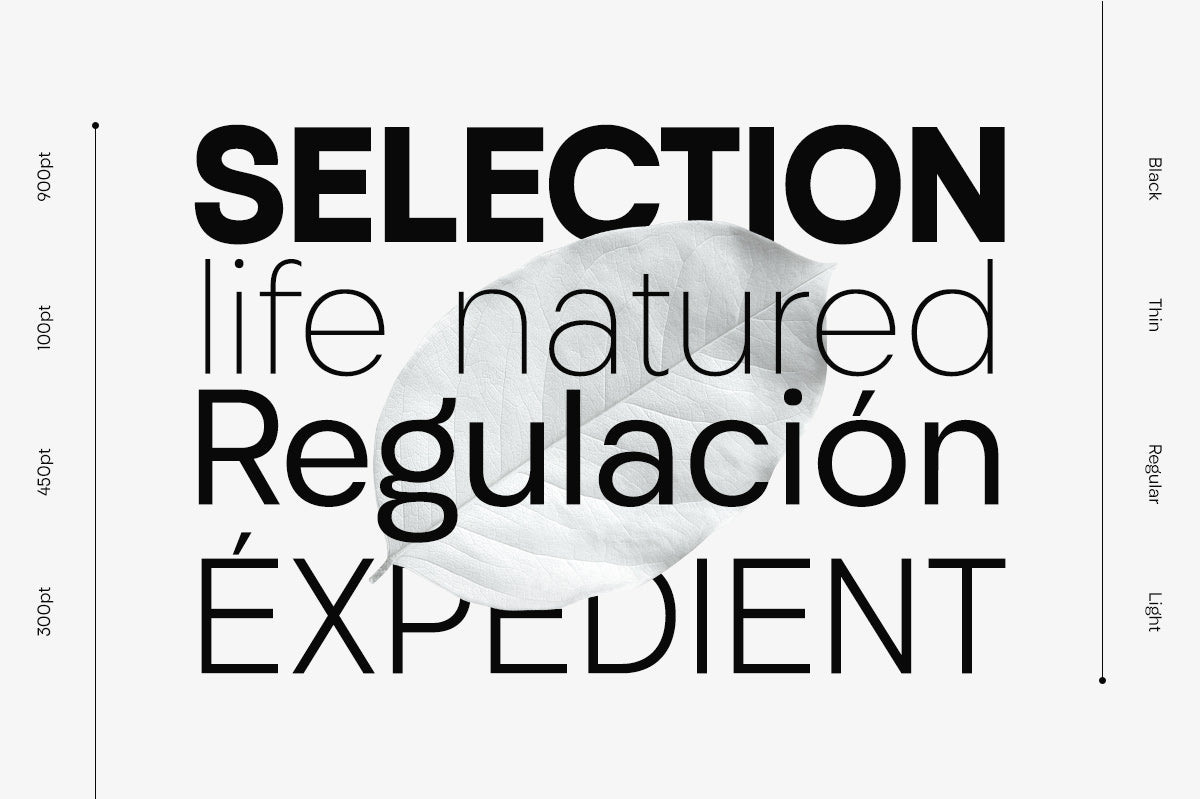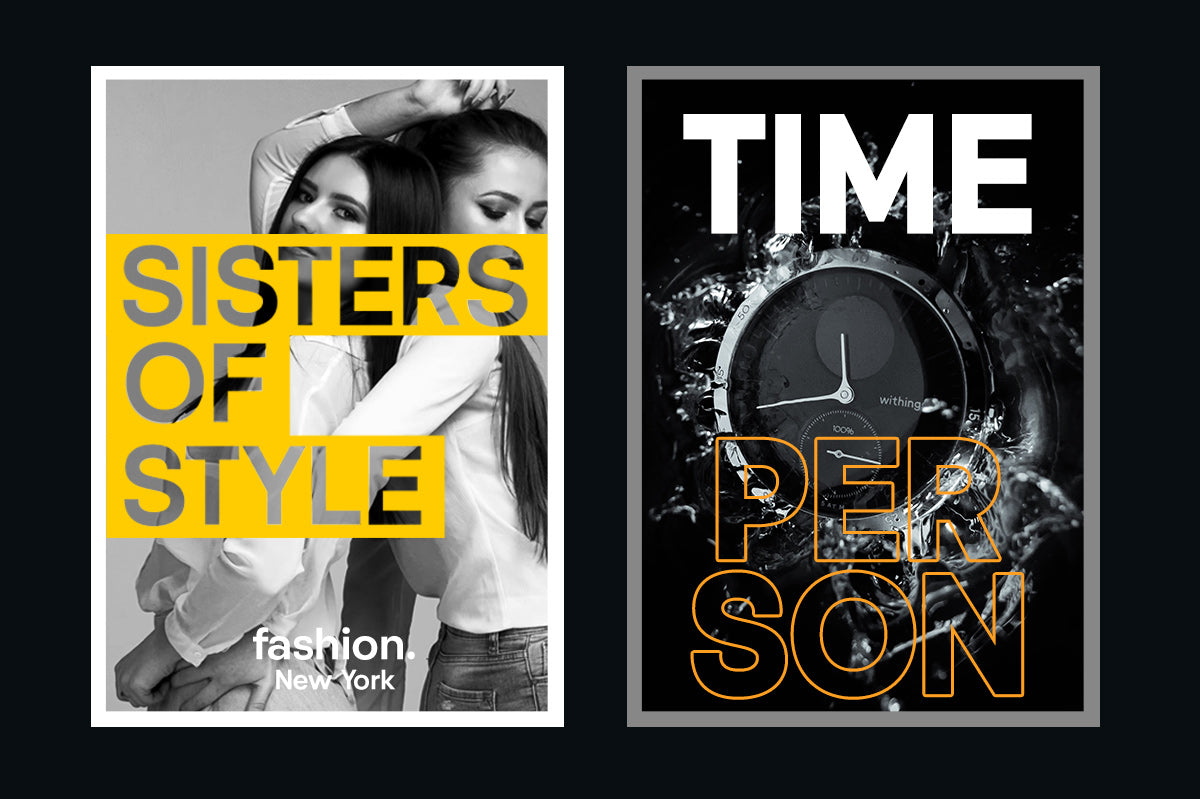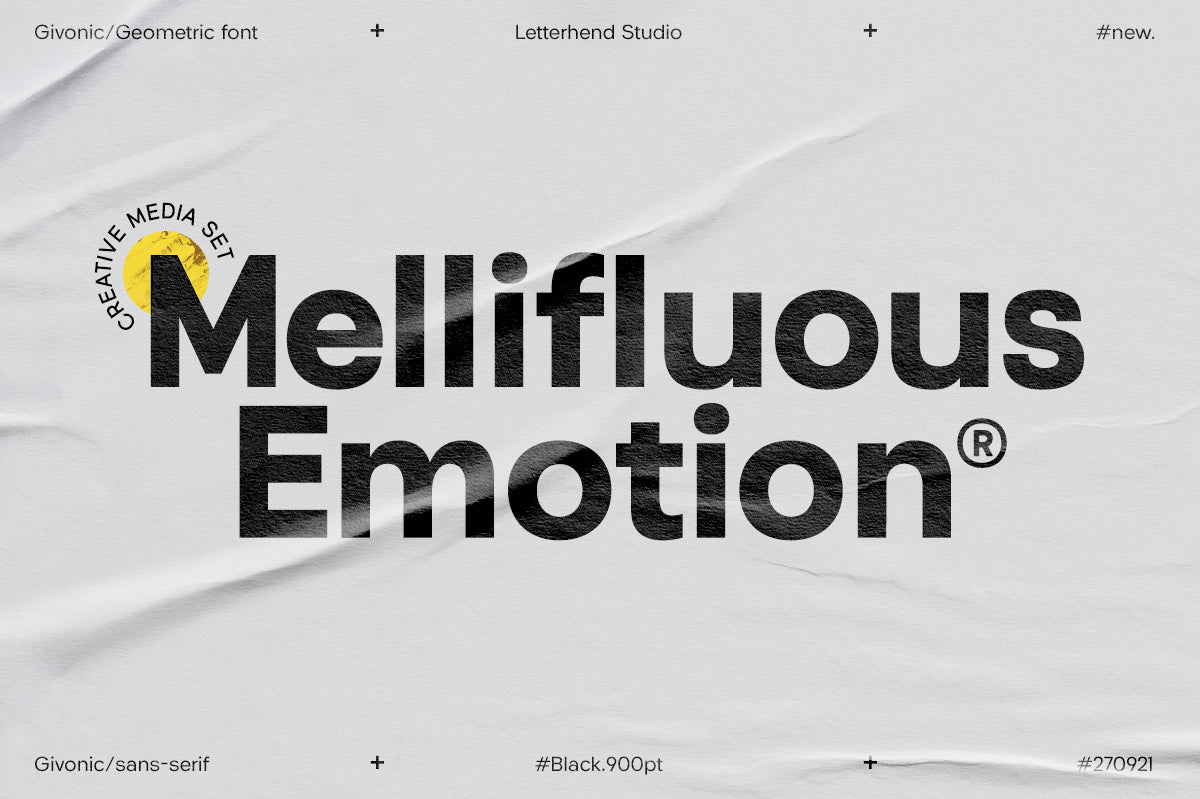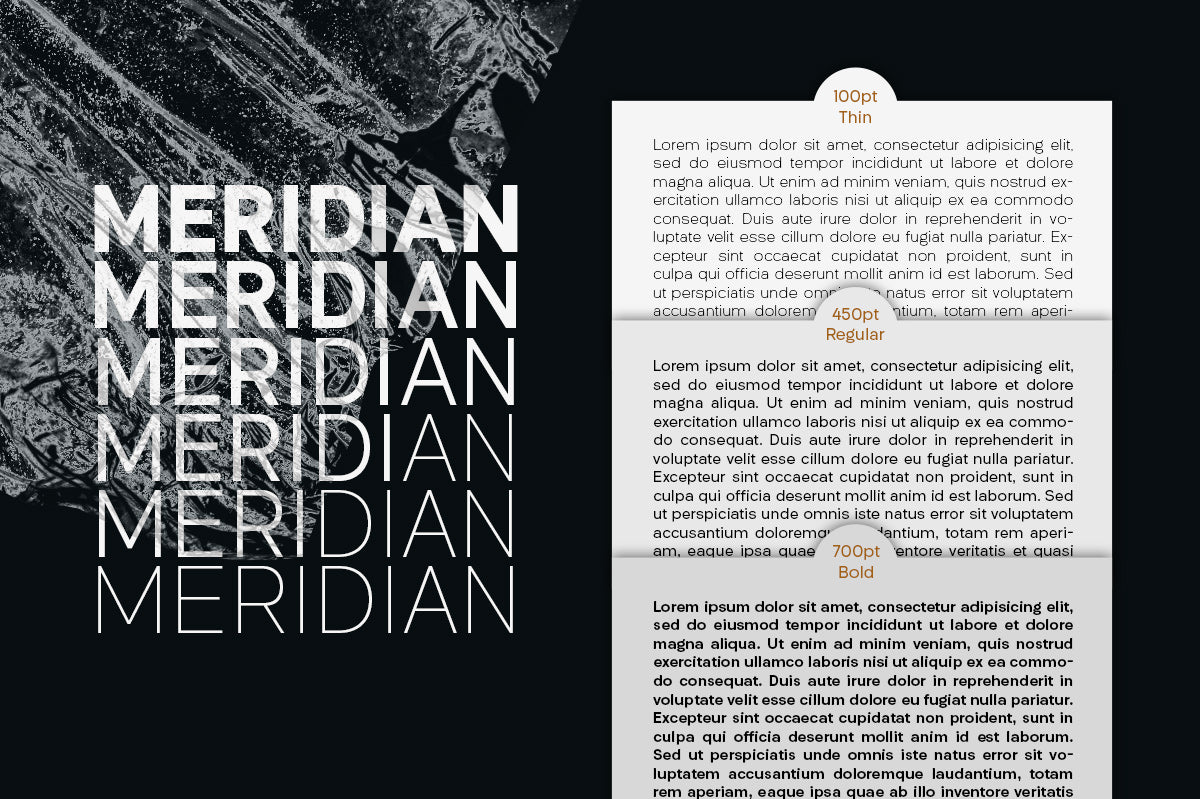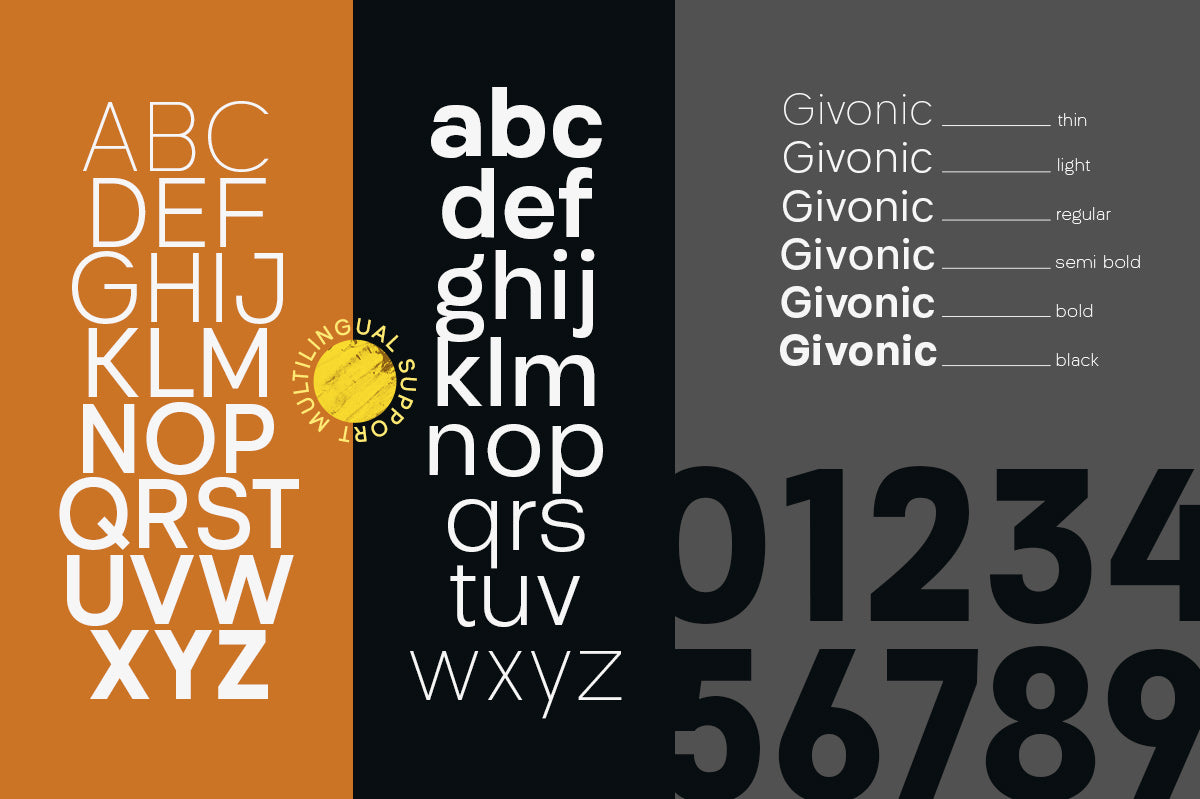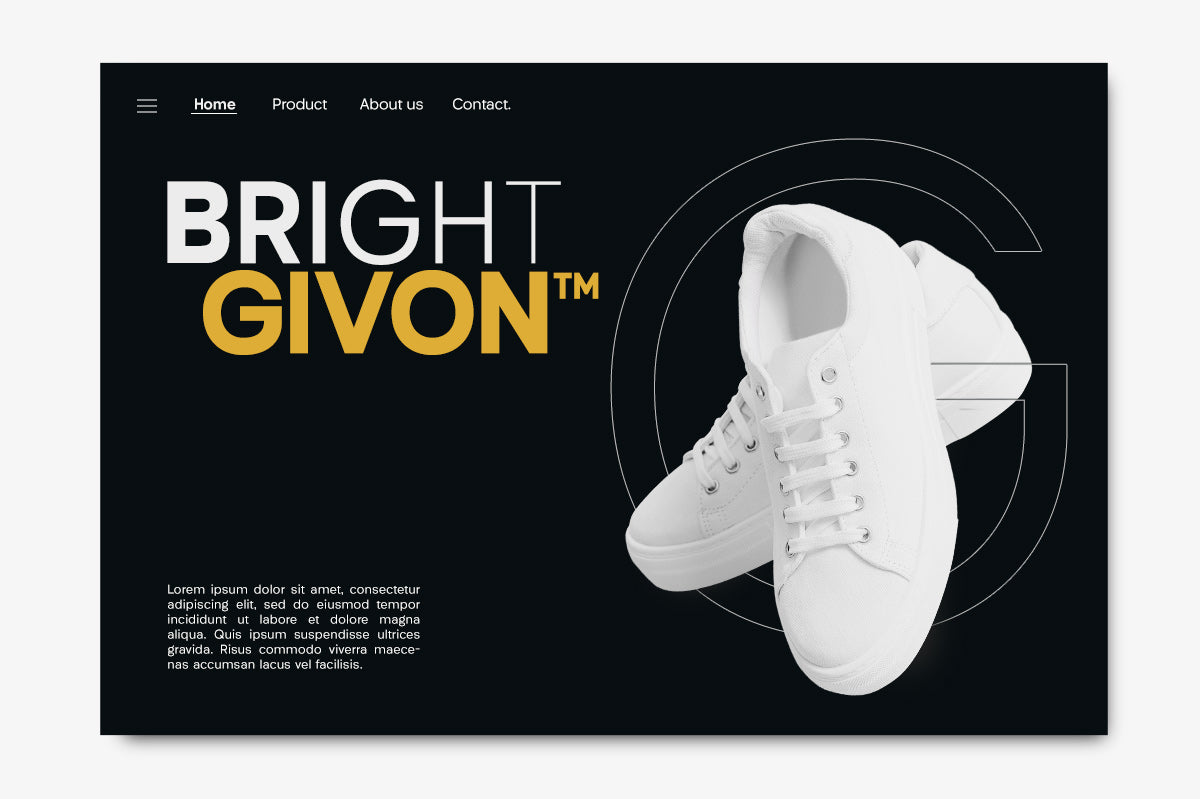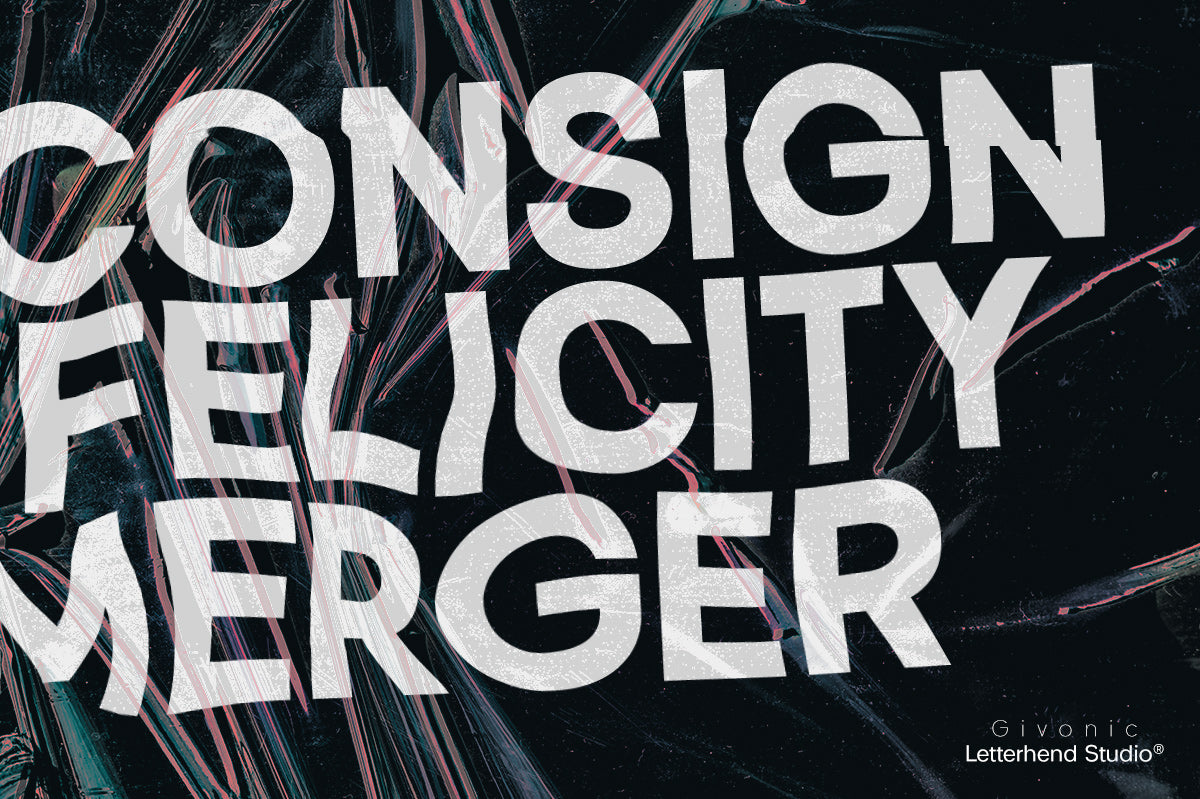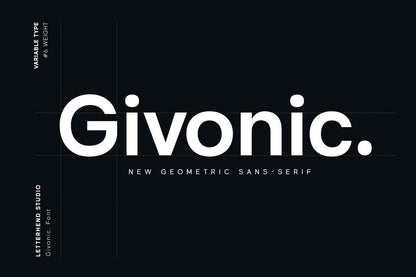
Givonic is a new geometric sans serif and clean variable font. The typeface is versatile to blend in your design - with 6 weights, ranging from regular, medium, thin, bold, semibold, extrabold, light, extralight, and black. Perfect anywhere you need final touches for branding, publishing, titles, books, magazines, and UI/UX designs.
Variable Font
uppercase & lowercase
numbers and punctuation
multilingual